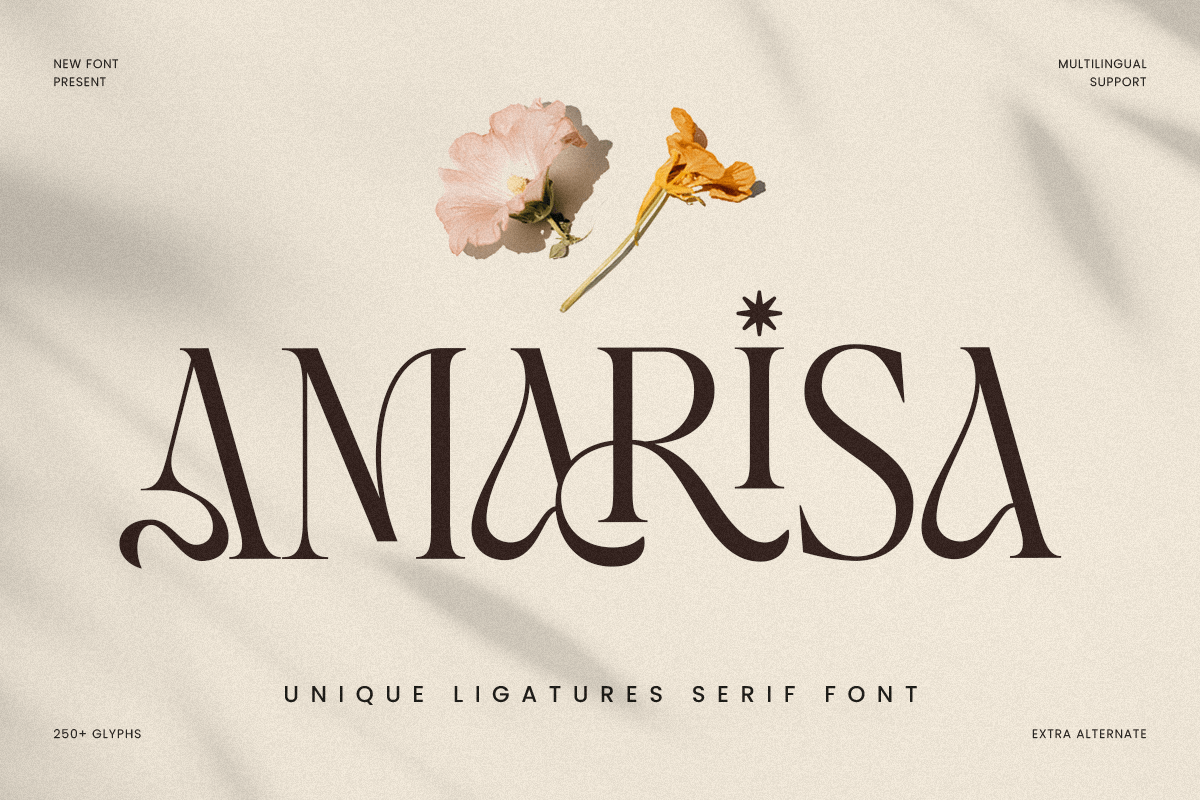
Amarisa
-Unique Ligatures Serif FontAmarisa - Unique Ligatures Serif Font
AMARISA is a unique ligatures serif font designed to bring refined elegance and distinctive character to modern typography. With graceful serif details and beautifully crafted ligature combinations, this typeface creates a premium visual tone that feels stylish, sophisticated, and instantly brand-ready.
Built for branding-focused design, AMARISA works beautifully across logos, wordmarks, editorial layouts, magazine headlines, website headers, packaging, labels, invitations, signage, presentations, and upscale marketing visuals. The unique ligatures add a custom, signature-like flow that helps your typography feel more exclusive while keeping the overall look clean and highly readable across print and digital applications.
Whether you’re creating a fashion identity, building a beauty brand, designing luxury packaging, or crafting an elegant editorial concept, AMARISA provides a refined serif foundation with distinctive ligature charm—making every design feel polished, memorable, and unmistakably premium.
Inspiration Behind AMARISA
AMARISA is inspired by luxury editorial typography and modern boutique branding—where elegant serif structure and subtle ligature connections create a bespoke visual signature. The design focuses on graceful rhythm, refined proportions, and premium detail to support stylish identities with timeless sophistication.
AMARISA Font Features:
Elegant ligature combinations for custom logo and wordmark design
Perfect for branding, editorials, packaging, and upscale headlines
High readability for stylish layouts and premium communication
Logos, wordmarks, and premium brand identity systems
Fashion, beauty, skincare, fragrance, and boutique branding
Editorial layouts, magazine covers, lookbooks, and headlines
Luxury packaging, labels, invitations, and elegant stationery
Social media campaigns, websites, presentations, and marketing assets
Elevate your typography with AMARISA—a unique ligature serif font made for elegant, premium branding. ✨